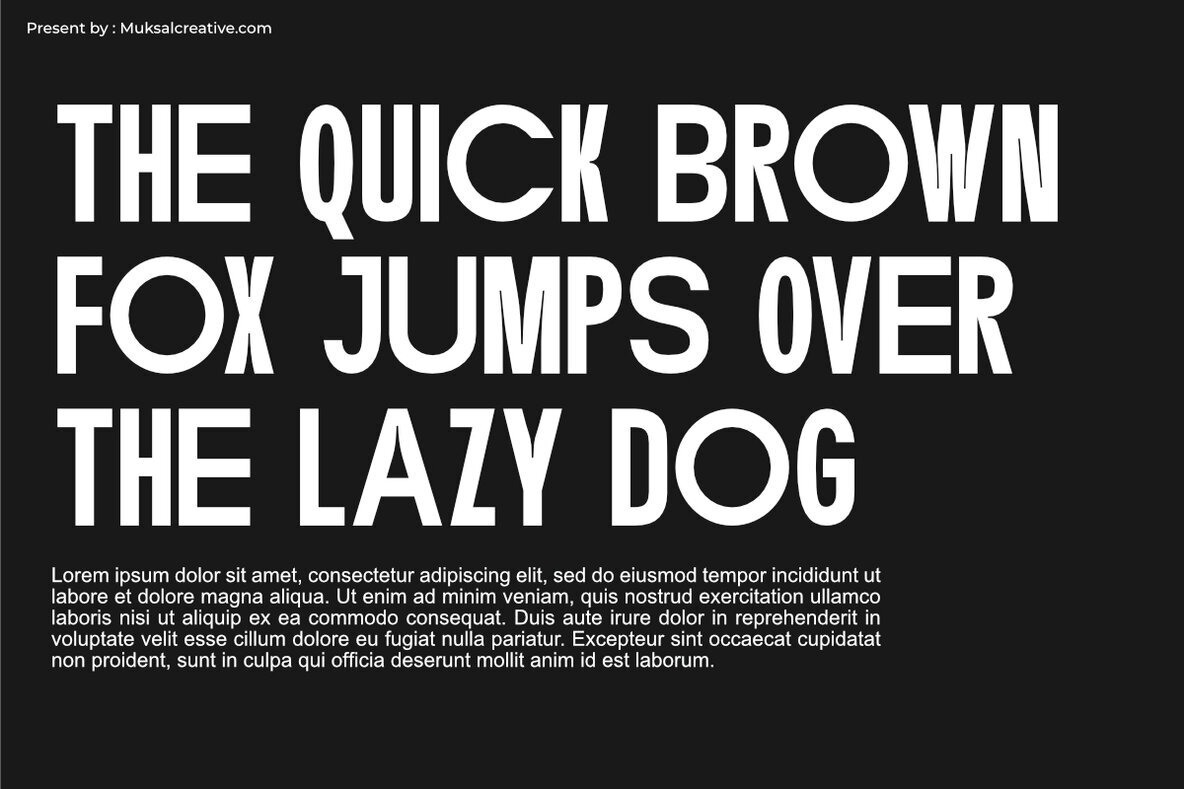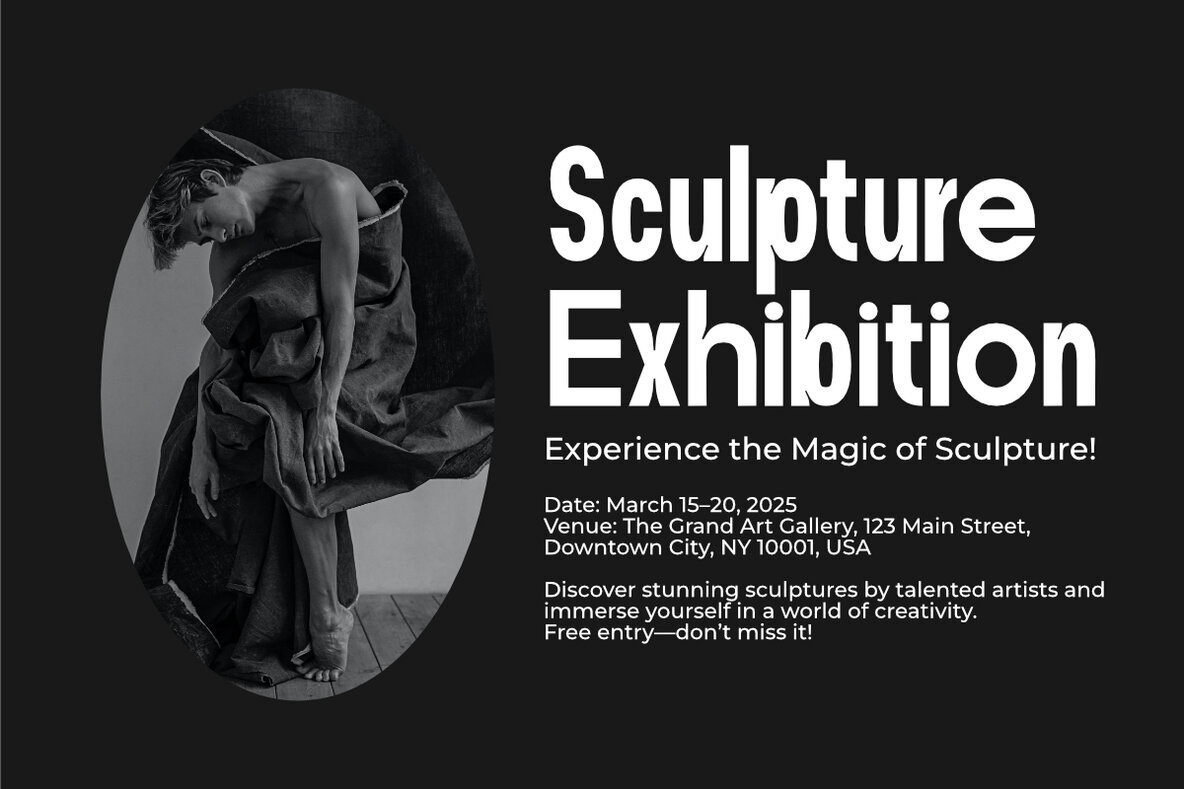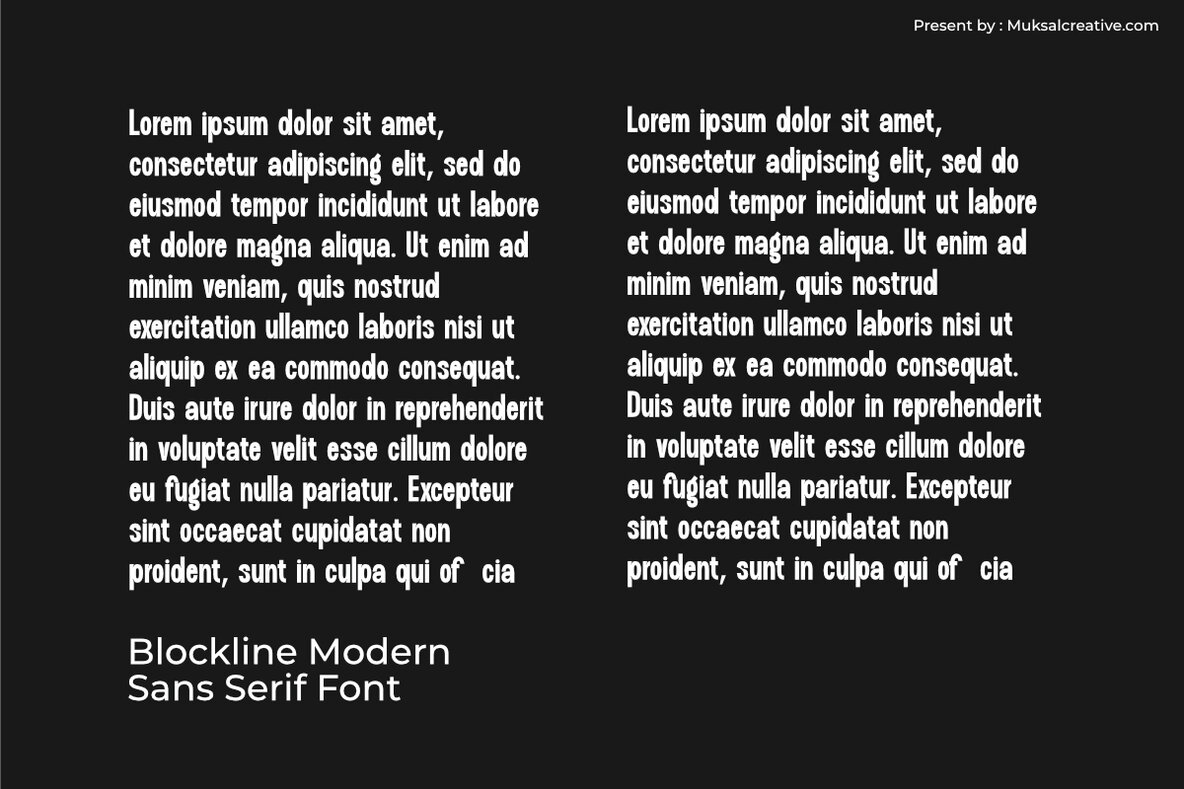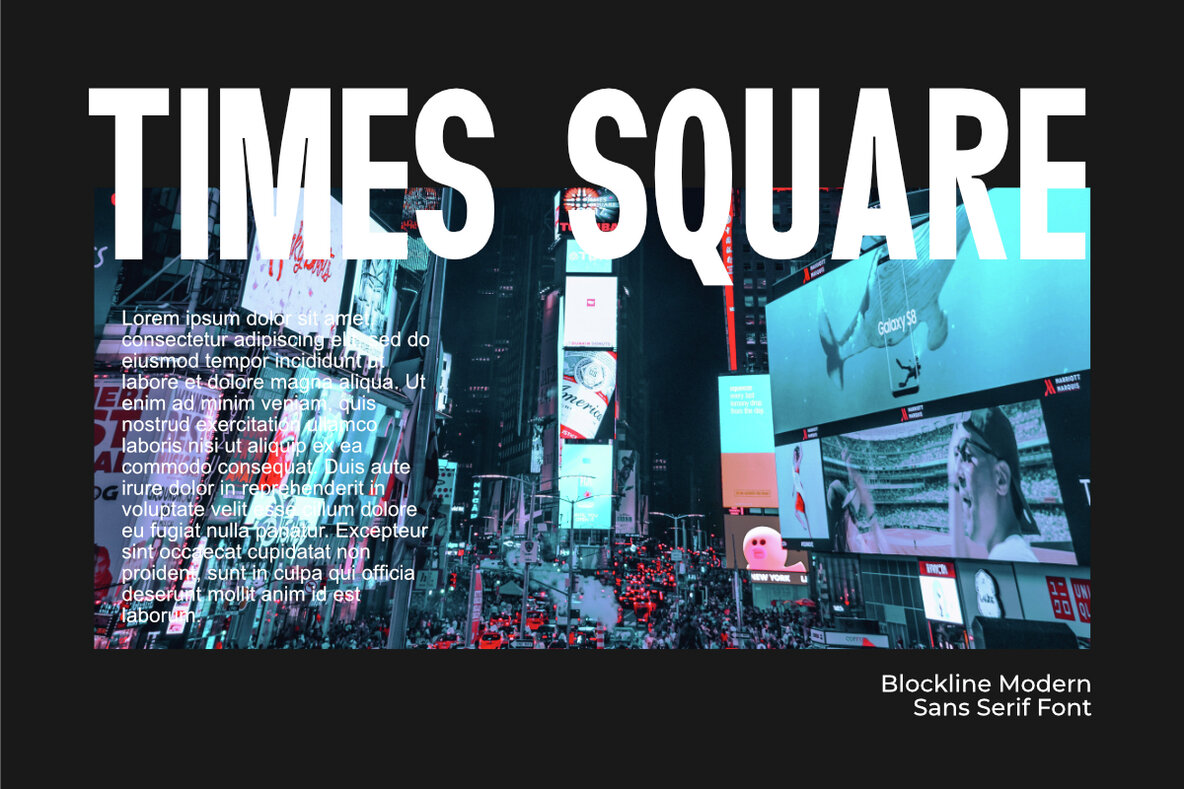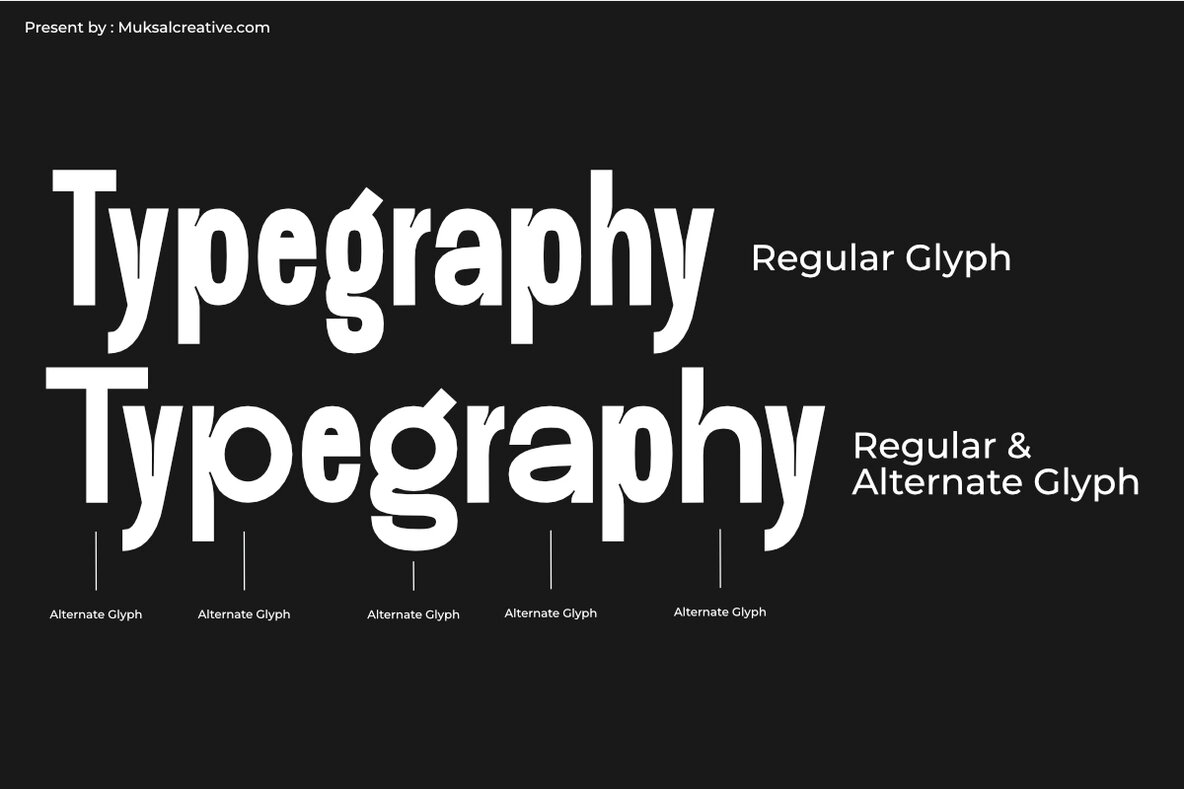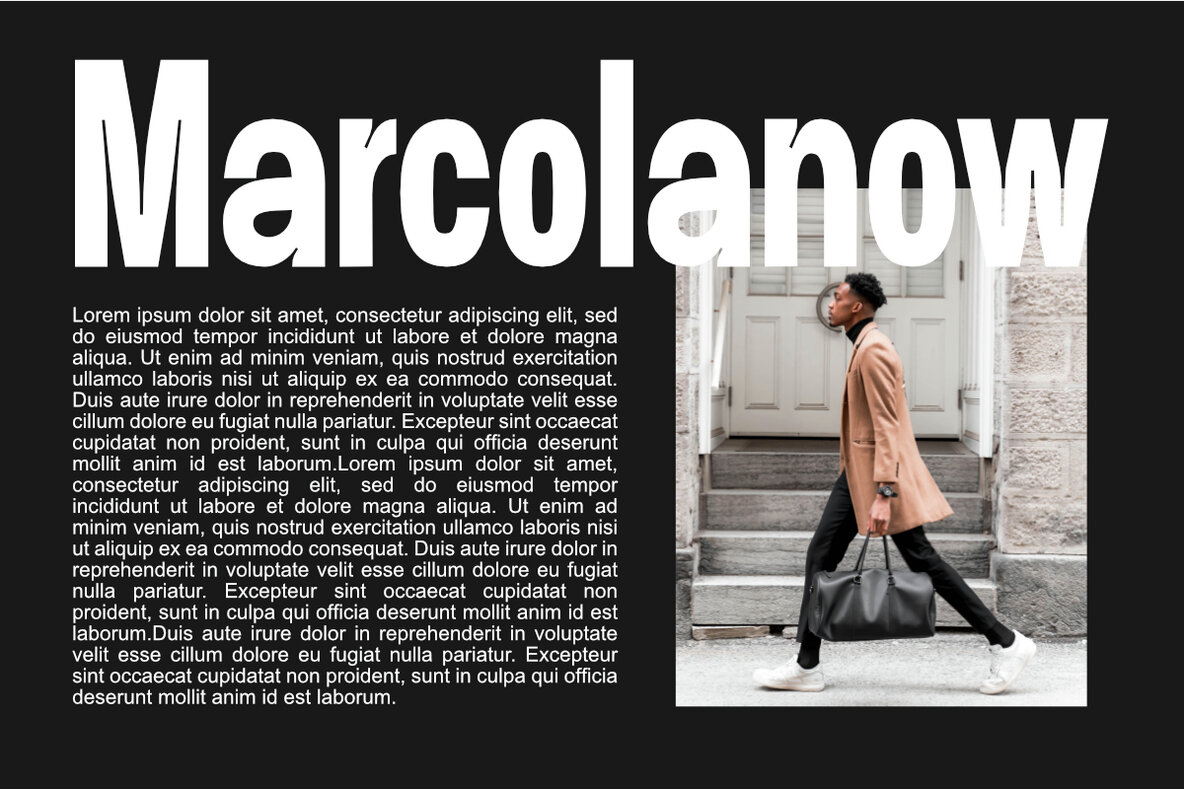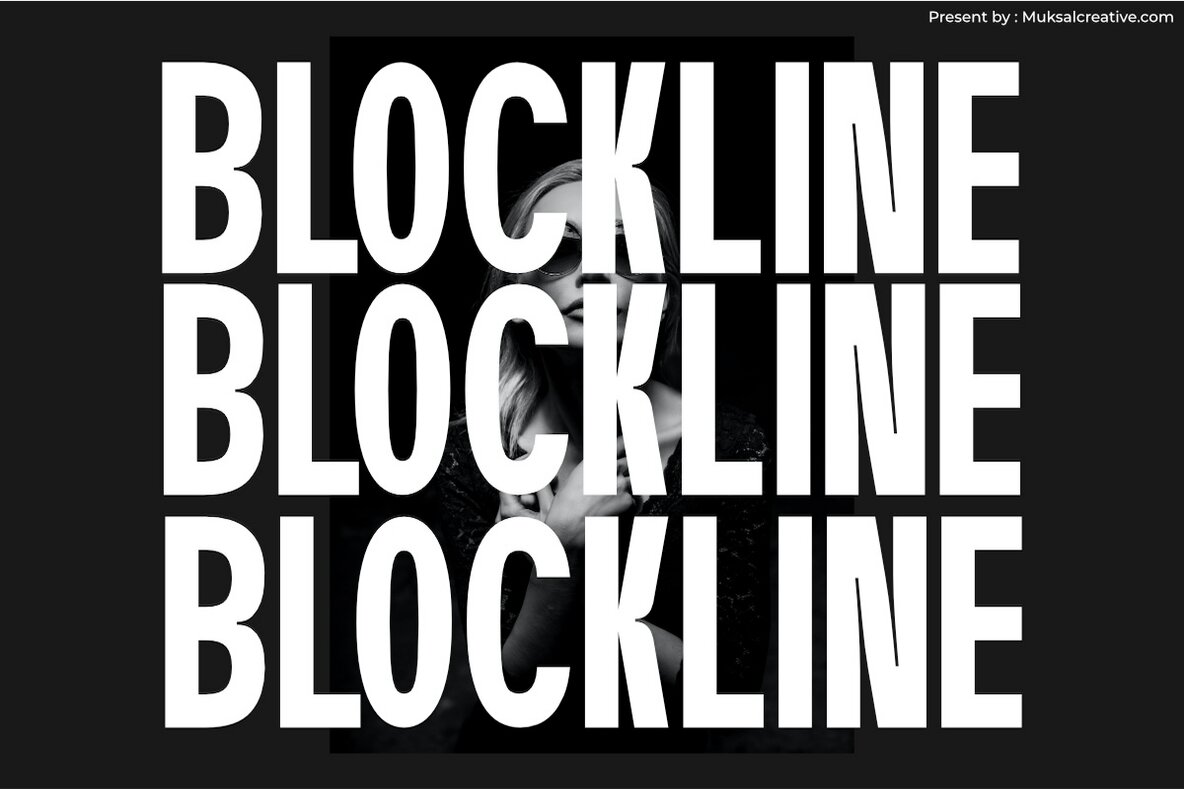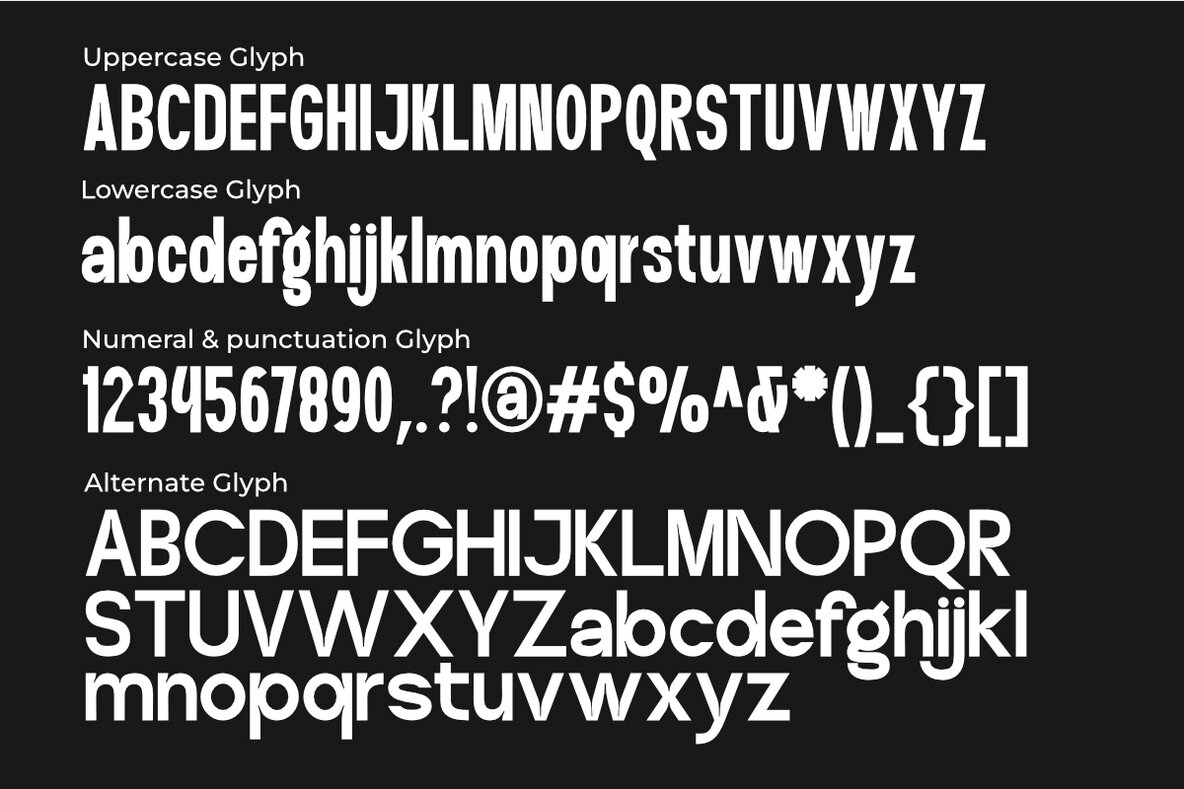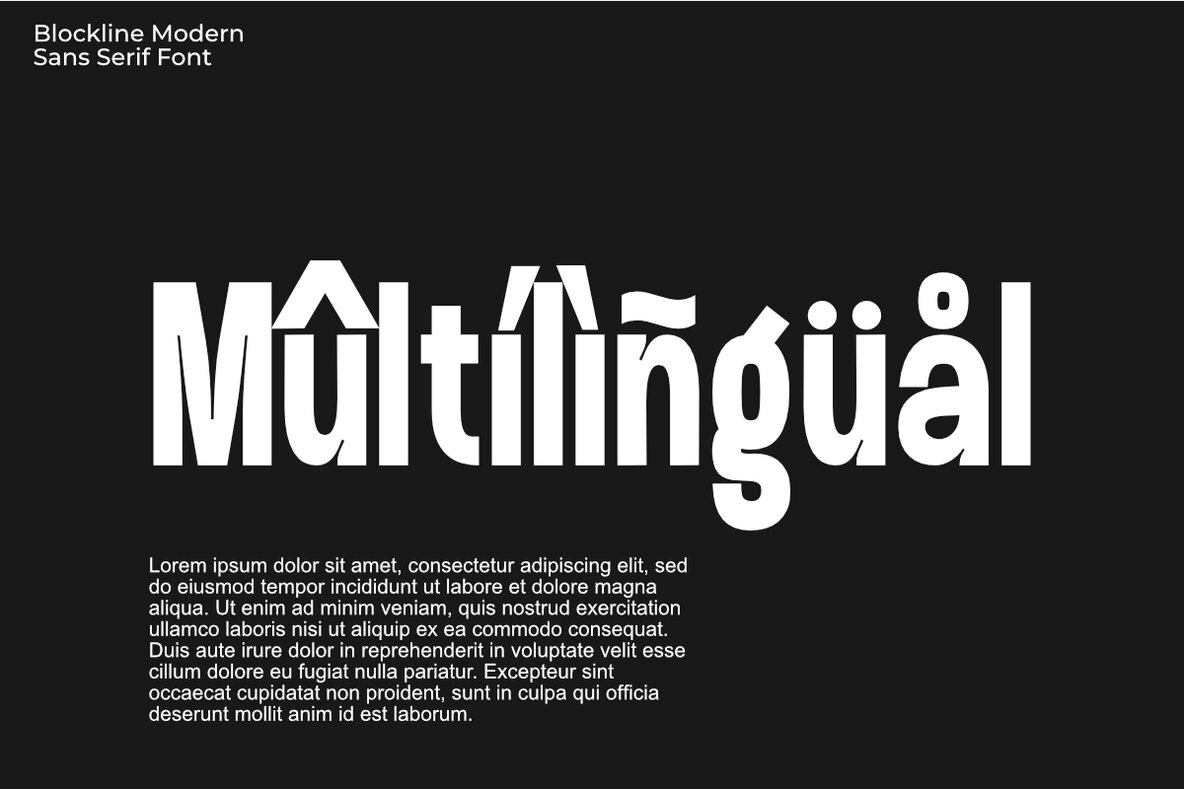
Blockline Font
Blockline Regular
Blockline is a bold, modern typeface designed to make a statement. With its clean lines, strong structure, and contemporary appeal, Blockline is perfect for headlines, branding, posters, and any design project that demands attention. Its geometric forms and slight retro touch give it versatility, making it suitable for both digital and print mediums. Features:
Whether you're creating a striking ad campaign or a memorable logo, Blockline delivers impact and style.